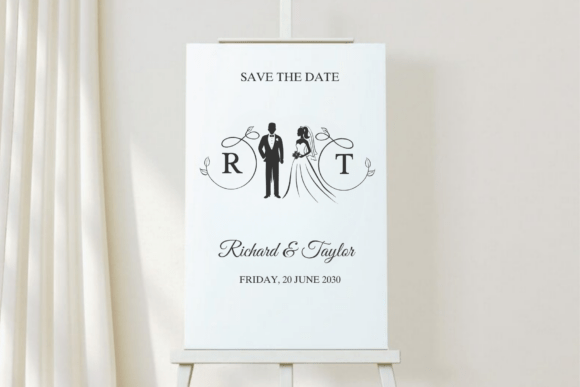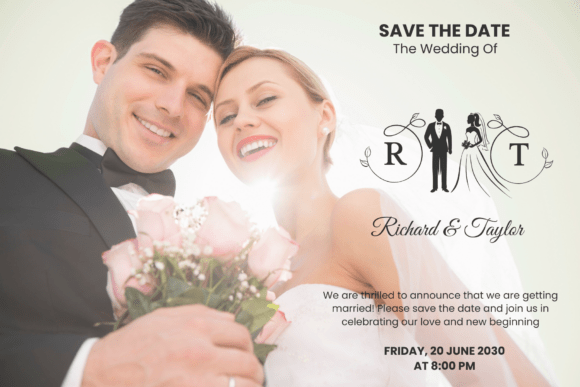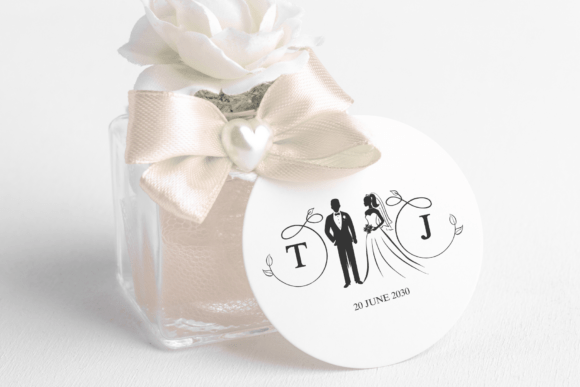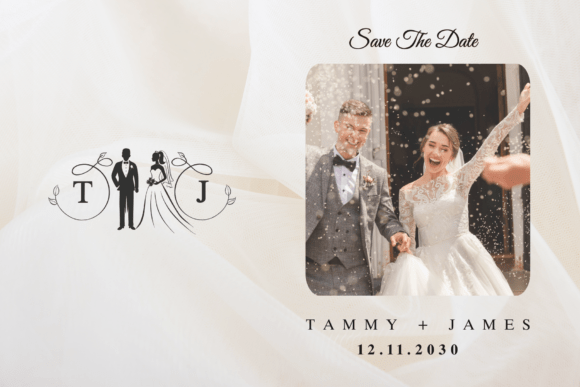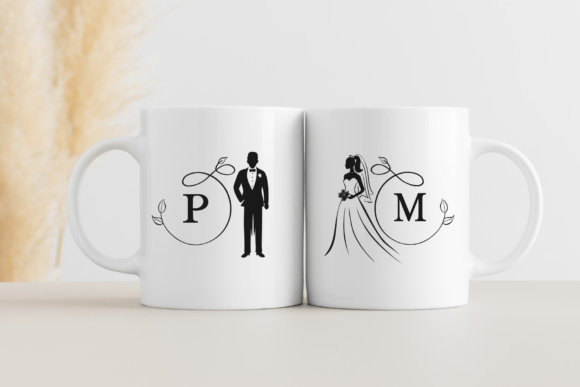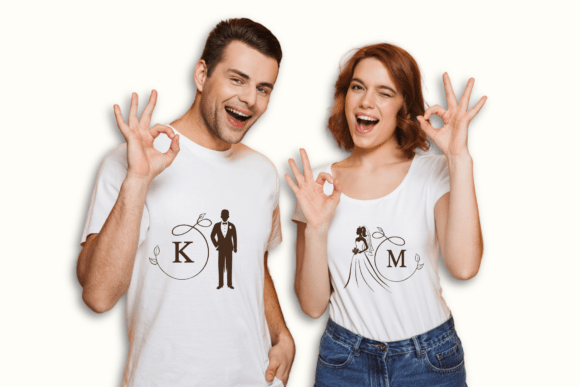
Introducing the Classic Wedding Monogram Font: Timeless Elegance for Your Special Day
Are you searching for a sophisticated and elegant way to add a personal touch to your wedding invitations, decorations, and gifts? Look no further than the Classic Wedding Monogram Font. This beautiful, circle alphabet features timeless bride and groom silhouettes with decorative swirl accents, perfect for creating refined and formal bridal designs.
What is the Classic Wedding Monogram Font?
The Classic Wedding Monogram Font is a stunning, elegant circle alphabet that showcases delicate bride and groom silhouettes surrounded by decorative swirl accents. This classic monogram alphabet is designed to add a touch of sophistication and luxury to any wedding-related project, from invitations and personalized initials to Cricut projects, laser cutting, engraving, signage, and custom decor.
Perfect for Wedding Invitations and Stationery
Make your wedding invitations and stationery truly special with the Classic Wedding Monogram Font. This beautiful font can be used to create custom monograms, add a personal touch to wedding cards, and even design elegant wedding programs. The classic and timeless design ensures that your wedding stationery will remain stylish and sophisticated for years to come.
Ideal for Cricut Projects and Laser Cutting
Crafters and DIY enthusiasts will love the Classic Wedding Monogram Font for their Cricut projects and laser cutting creations. Use this font to design and cut custom wedding decorations, such as paper flowers, garlands, and intricate monograms. The font’s elegant design and precise lines make it perfect for laser cutting and engraving.
Engraving and Signage Made Easy
The Classic Wedding Monogram Font is also ideal for engraving and signage projects. Use this font to create custom engraved wedding signs, welcome signs, and even personalized anniversary gifts. The font’s classic design ensures that your engraved signs and gifts will remain elegant and sophisticated for years to come.
Custom Decor and Handmade Wedding Creations
Add a personal touch to your wedding decorations and handmade wedding creations with the Classic Wedding Monogram Font. Use this font to design custom wedding banners, garlands, and even decorative wedding favors. The font’s elegant design and versatility make it perfect for a wide range of handmade wedding projects.
Why Choose the Classic Wedding Monogram Font?
There are many reasons why the Classic Wedding Monogram Font is the perfect choice for your wedding designs and projects. Here are just a few:
- Timeless elegance: The Classic Wedding Monogram Font features a timeless and elegant design that will never go out of style.
- Versatility: This font can be used for a wide range of wedding-related projects, from invitations and stationery to Cricut projects and laser cutting.
- High-quality design: The font features high-quality, precise lines and elegant swirl accents, ensuring that your projects look professional and sophisticated.
The Classic Wedding Monogram Font is a beautiful and elegant addition to any wedding design or project. With its timeless bride and groom silhouettes and decorative swirl accents, this font is perfect for creating refined and formal bridal designs, anniversary gifts, and handmade wedding creations. Whether you’re a designer or crafter, this font is sure to become a staple in your wedding design collection.